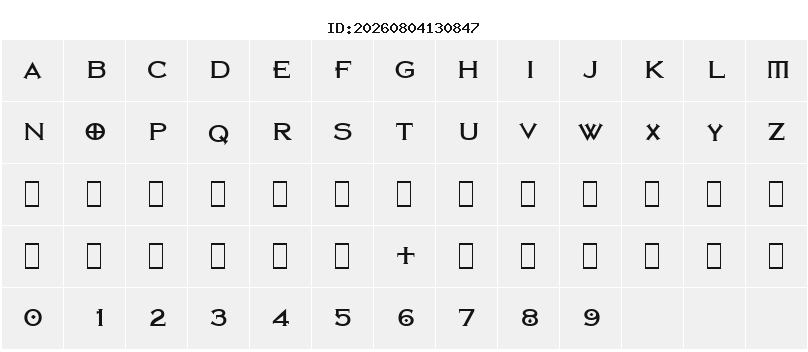
Nirvana Preview
• Font Name: Nirvana
• Font Style: Roman
• Full Font Name: Nirvana Roman
• PostScript Name: Nirvana-Roman
About Nirvana.ttf
Nirvana.ttf is a modern, elegant sans-serif font designed for ultimate readability and visual harmony. Perfect for branding, headlines, web design, and print materials.